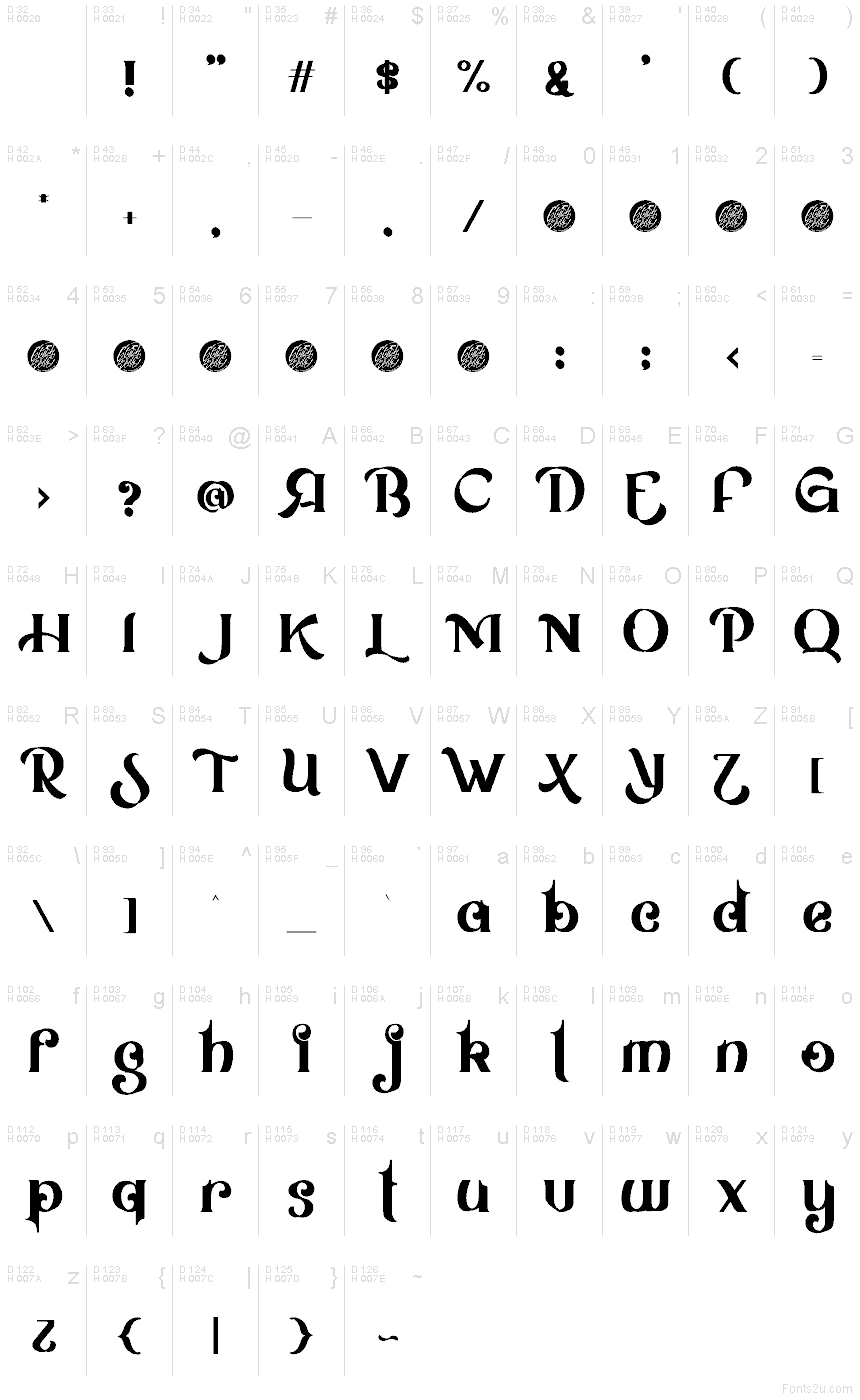
Raich Artifex Demo
Raich Artifex font designed by Glyphstyle is a display font with retro roots. It combines true elegance with highly ornamental details inspired by vintage typefaces, and along historical echoes, it displays an artistic flair. A refined aesthetic thus prevails as designers create impressive personal and commercial projects with the delicately balanced letters.